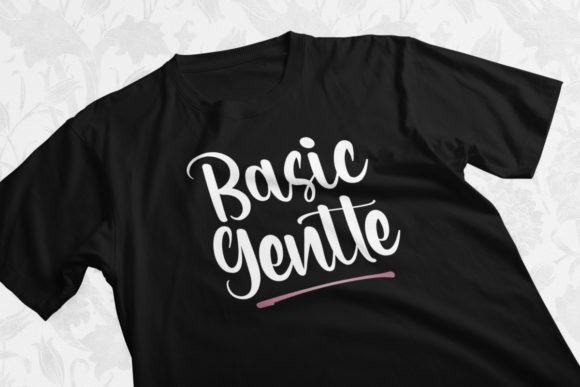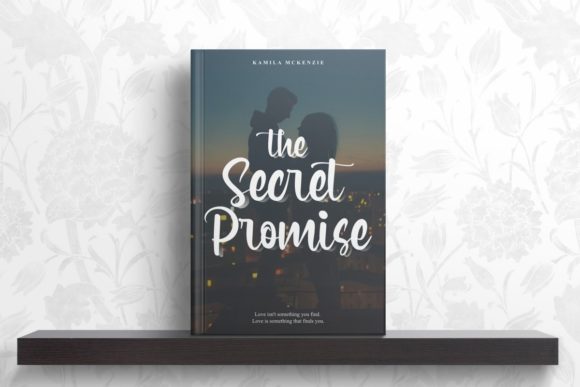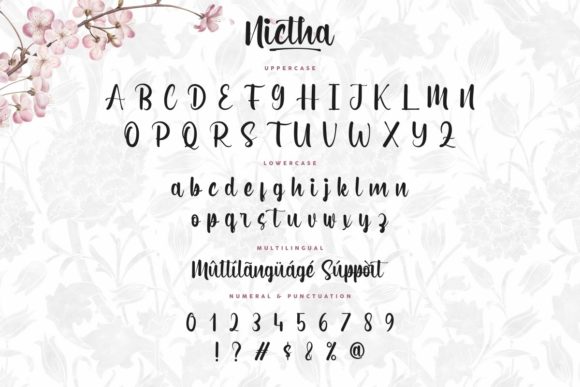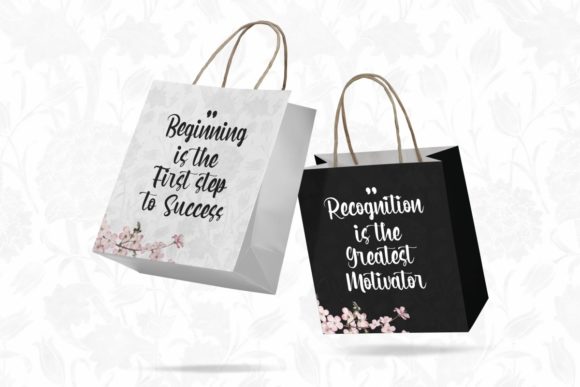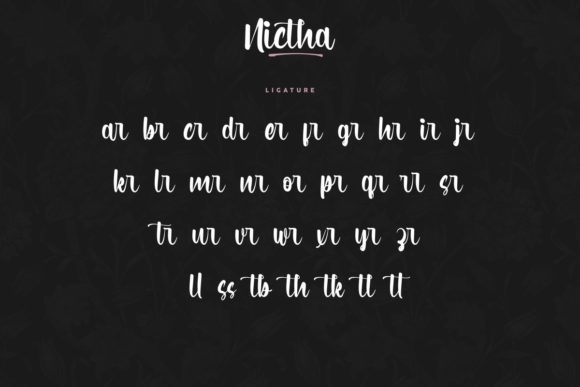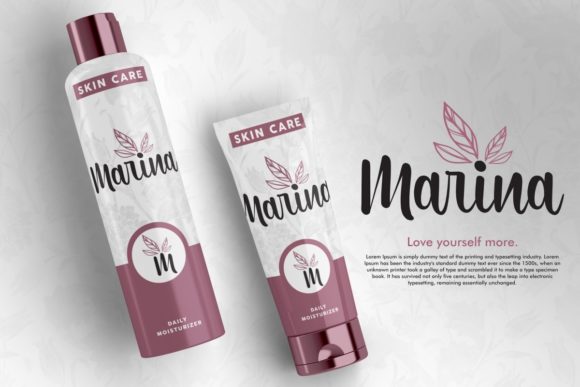
Introduction to Nictha Font
Nictha is a beautiful script font with sophisticated characters, stylish swash, and gorgeous alternates.
This is perfect for invitation calligraphy, luxury branding, fashion promotions, song titles, and many more creative projects This font is crafted carefully in every single scratch, created to look as close to natural handwriting as possible so that it can create the perfect combination on each glyph.
Key Features of Nictha Font
Why Choose Nictha Font?
Nictha Font offers exceptional quality and versatility, making it a valuable addition to your design toolkit. Whether you’re creating for personal projects or commercial use, Nictha Font delivers professional results.